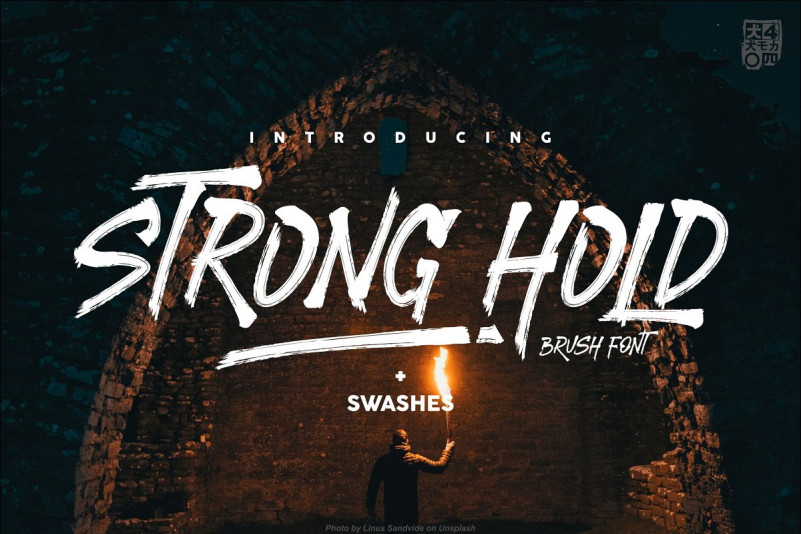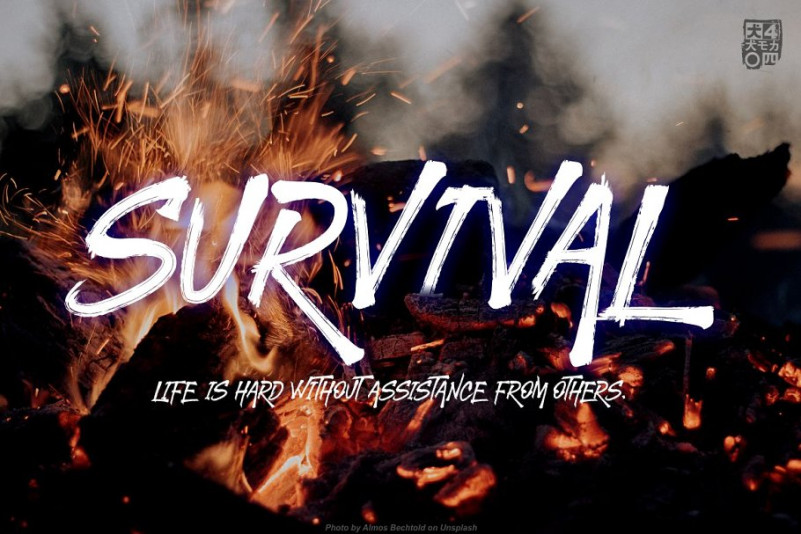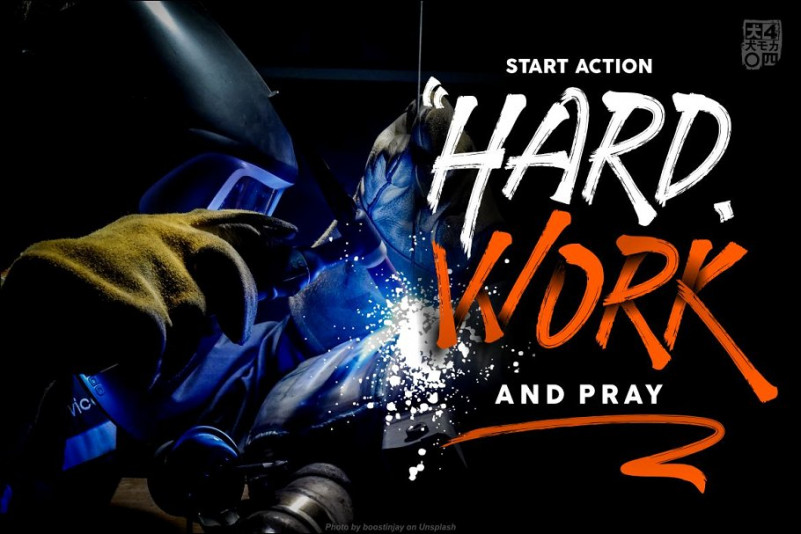
STRONGHOLD Font
STRONGHOLD BRUSH FONT, A handmade handwritten Brush typeface with unique glyphs and Powerfull. STRONGHOLD BRUSH FONT playfull will look so good on your poster, Blog, Website, tshirt and any other fun projects you are working on.